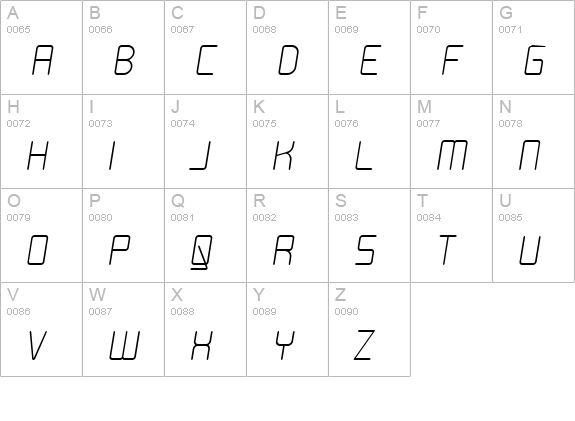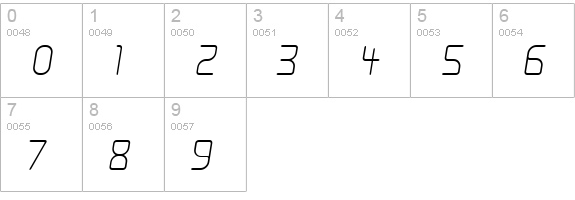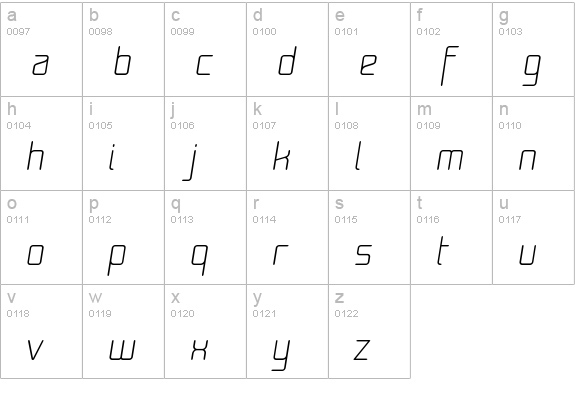
Moondog Zero Italic Font Details
Moondog Zero Italic is a distinctive, italic variant in the Moondog typeface family \xE2\x80\x94 well suited to design and typography projects.
Moondog Zero Italic font is a modern and stylish typeface that exudes a sense of sophistication and creativity. Its sleek and elegant design makes it perfect for a wide range of projects, from branding to editorial design. The italicized version of Moondog Zero adds a touch of flair and sophistication to your text, making it stand out with a subtle yet impactful style. The best part about Moondog Zero Italic font is that it is completely free to download at FontsMarket.com. This means you can access this beautiful font without any cost, making it a valuable addition to your font collection. Whether you're working on a personal project or a professional design, Moondog Zero Italic font is sure to elevate your work with its unique charm and versatility. Download it today and bring a touch of elegance to your next design project!